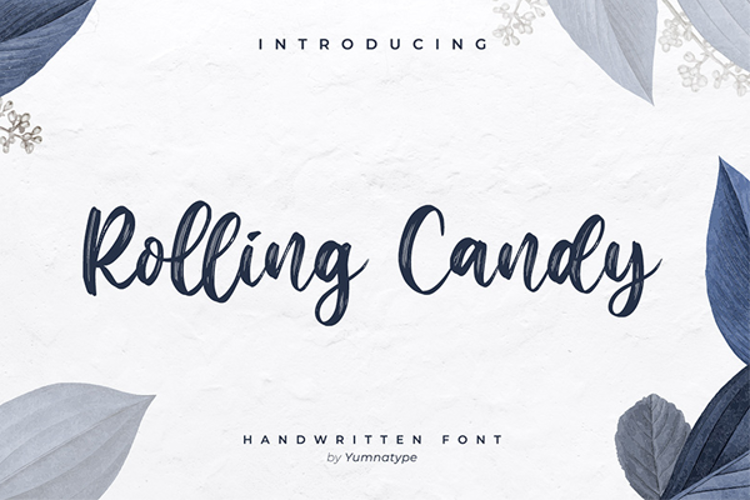
Rooling Candy Font
Rolling Candy is a beautiful handwritten font with a natural and unique design will make your project
more beautiful. The font is suitable for your branding project, printing, logos dan wedding.